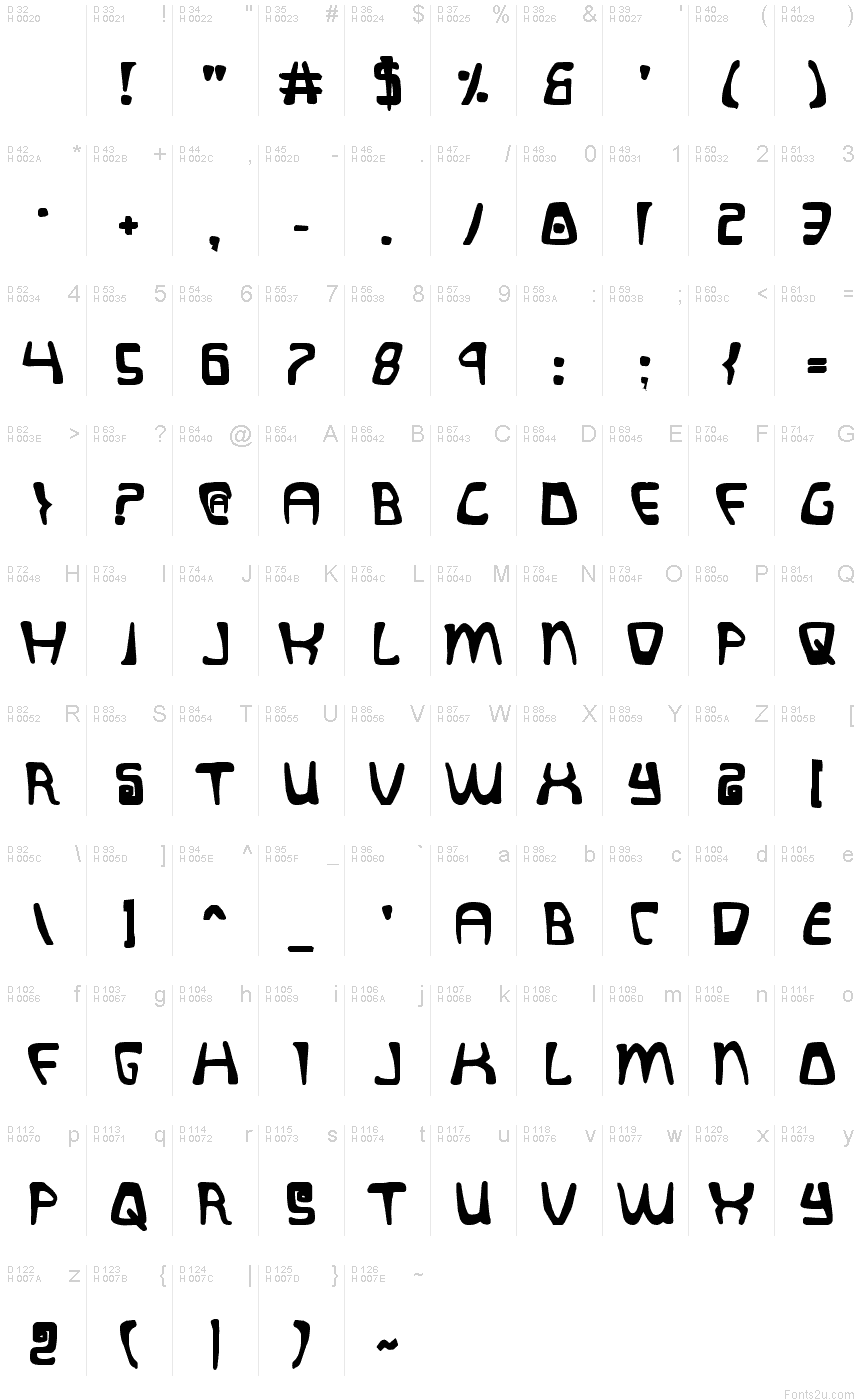
Quatl Bold
Quatl Bold, from Iconian Fonts, is a free Mesoamerican display font with chunky, carved-looking letters and a raw, ceremonial rhythm. The forms feel cut from stone or painted on temple walls, with broad rounded strokes, pinched joins, and uneven contours that keep the font animated rather than orderly.
It works naturally in poster titles, game logos, festival graphics, museum promos, and book covers where a free font can carry a pre-Columbian or mythic atmosphere without turning slick. Because the letters are so compact and emblematic, Quatl Bold also fits short headlines, title cards, and monogram-like initials that need a bold, artifact-like presence.